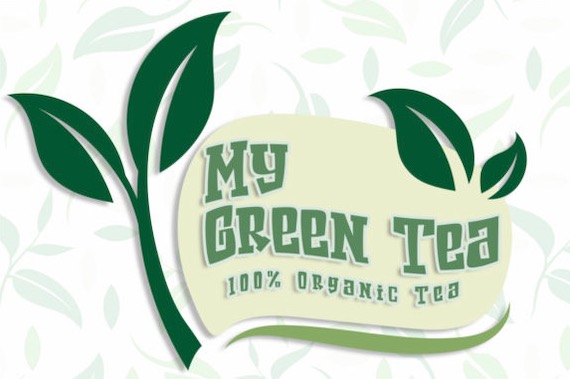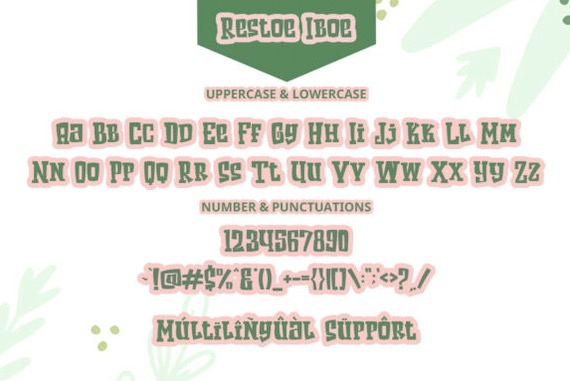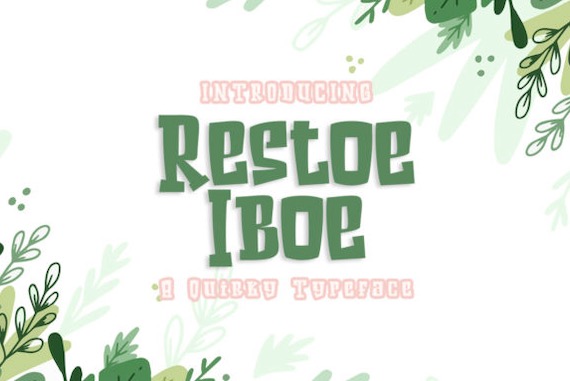
Restoe Iboe is a cartoon & comic and quirky display font that was created and shared by Green Adventure Studio. This script fancy font is very perfect for designs such as headings, flyers, greeting cards, product packaging, book covers, printed quotes, logotype, apparel design, Instagram posts, album covers, and more.
Restoe Iboe Display Font